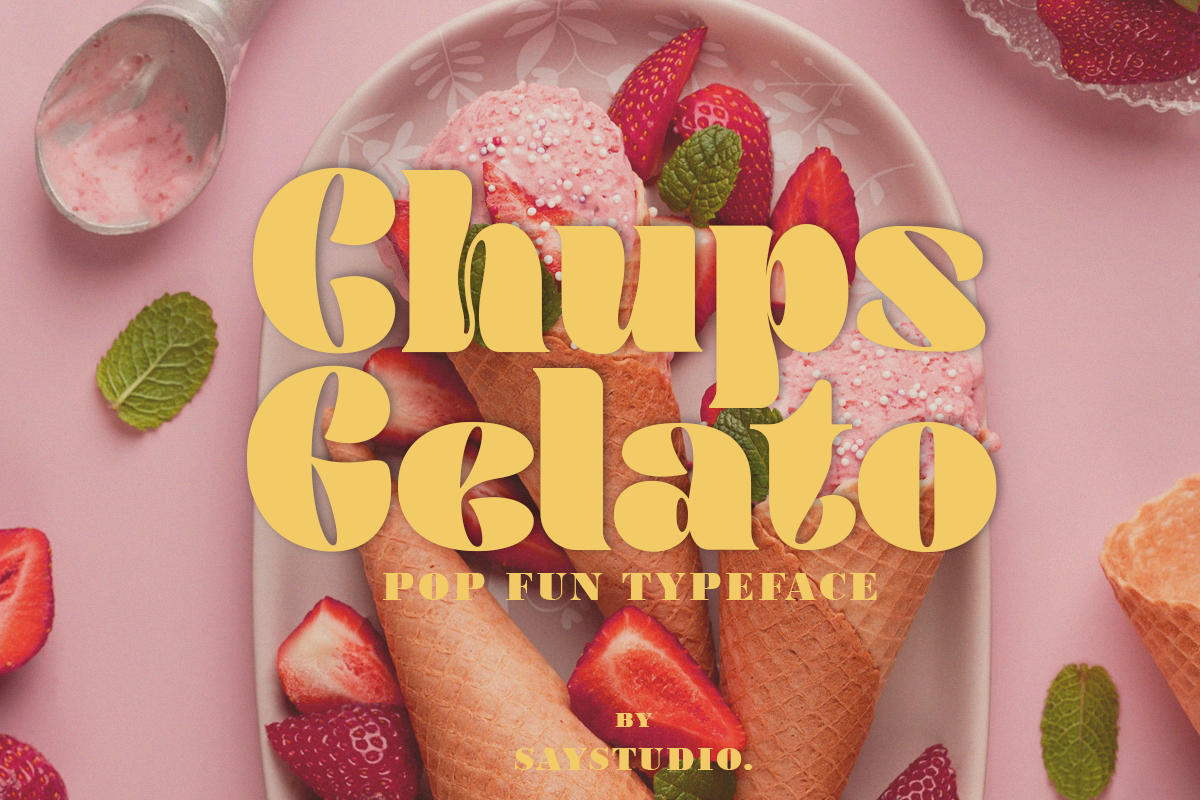
Chups Gelato - Pop Fun Font Free Download
The Chups Gelato - Pop Fun Font Free Download is a playful and vibrant font designed to add a burst of energy to your designs. With its bold, rounded letters and lively character, this font is perfect for fun projects like posters, social media graphics, event invitations, and more. Its cheerful and eye-catching style brings a youthful, carefree vibe to any creative endeavor. Please note, for commercial use, you will need to purchase a license. However, you can easily download the Chups Gelato - Pop Fun Font Free Download for free for personal use and see how it enhances your designs. Whether you're creating for personal projects or business branding, this font will make your work stand out with its unique, playful appeal. Download the Chups Gelato - Pop Fun Font Free Download today and give your designs a fresh and fun twist.